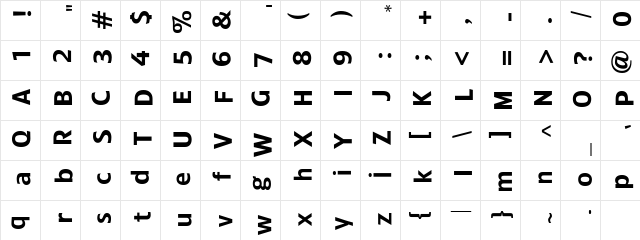
Font270 Regular
Design Context for Font270 Typeface
Font270 offers clean, dependable letterforms without strong stylistic allegiance, making it a practical choice for designers who need flexibility.